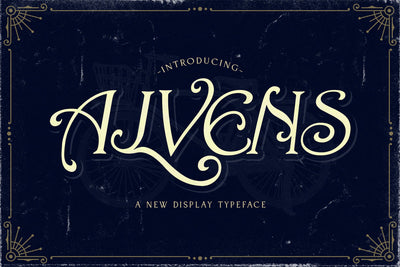
Alvens - Stylish Display Font
Introducing Alvens - Stylish Display Font
Alvens is a beautiful and stylish display font. It features beautiful stylistic alternates that will take your projects to the next level. This font is PUA encoded which means you can access all of the cute glyphs with ease! It also features a wealth of special features including alternate glyphs and ligatures.
- Stylistic Alternates